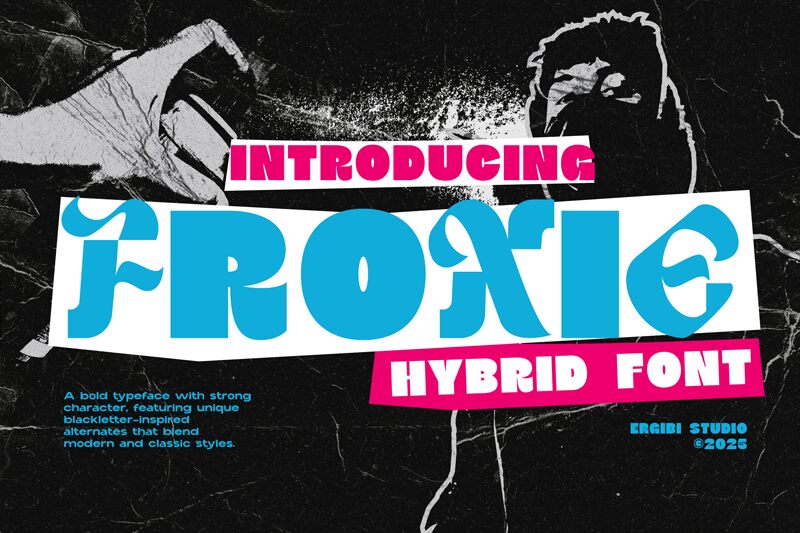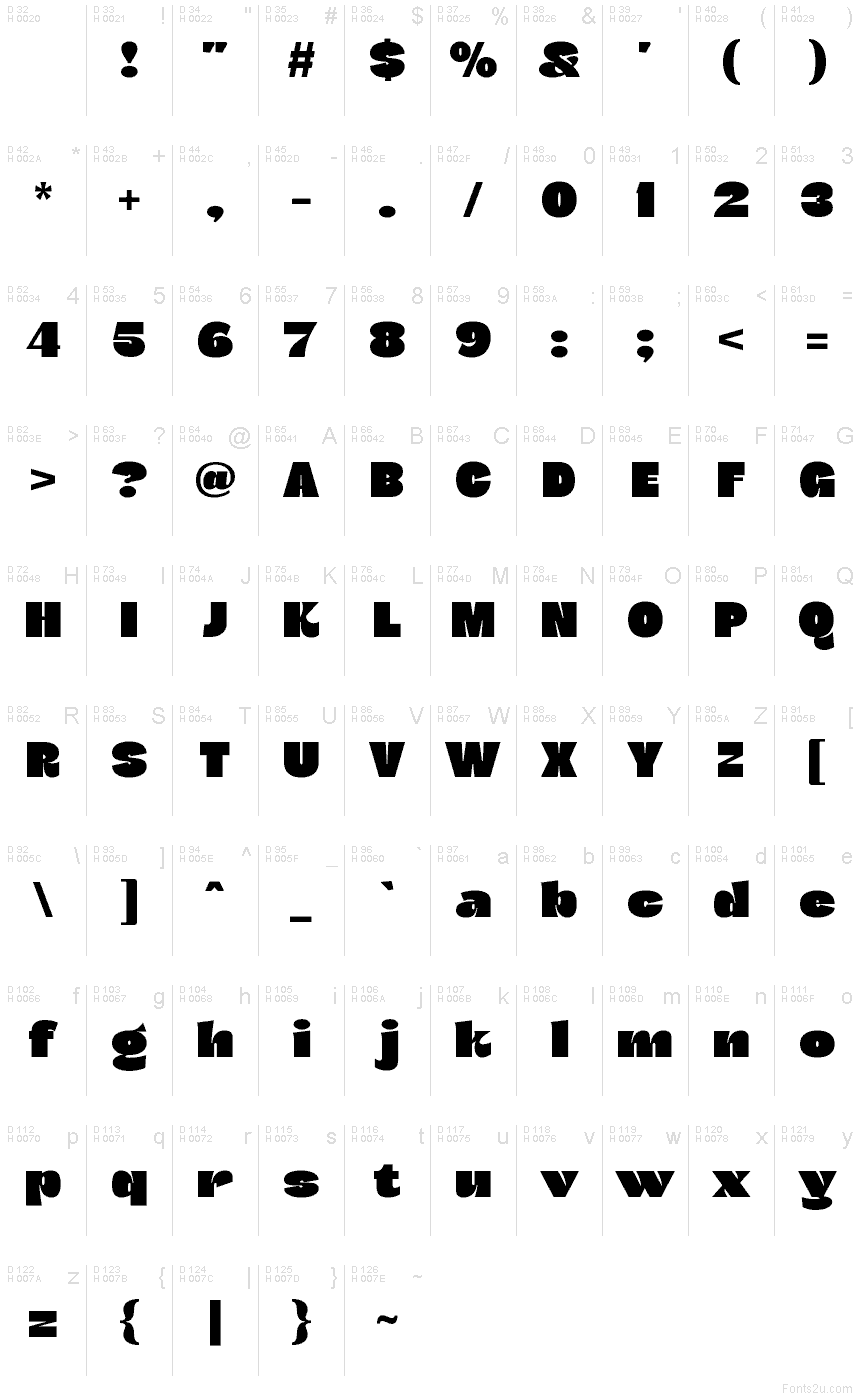
FROXIE
Froxie font by Riyadh Rahman is a free ultra-bold geometric display typeface. Its personality comes from blocky, ink-black shapes with carved cutouts and tight counters that punch through the mass, giving each word a sculpted, poster-ready presence. Letters feel like solid tiles—crisp on edges, slightly playful in the curves—so headlines lock up cleanly and read loud even at a glance.
Using Froxie, you get instant impact for poster titles, streetwear branding, gaming and esports logos, album covers, packaging, and bold event flyers. The forms stack neatly in tight tracking, so you can push scale without losing clarity; this free font loves big sizes. Pair it with a simple grotesque or humanist sans for body copy to keep the spotlight on Froxie’s chunky rhythm.